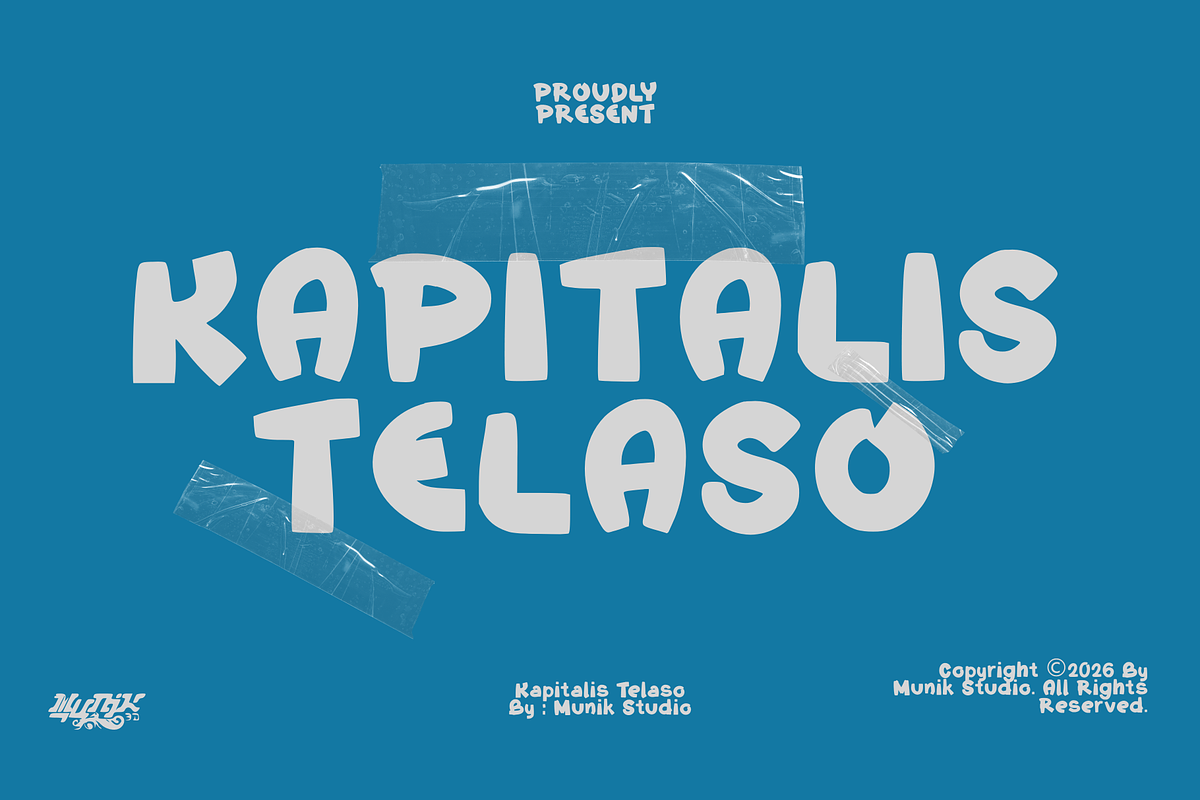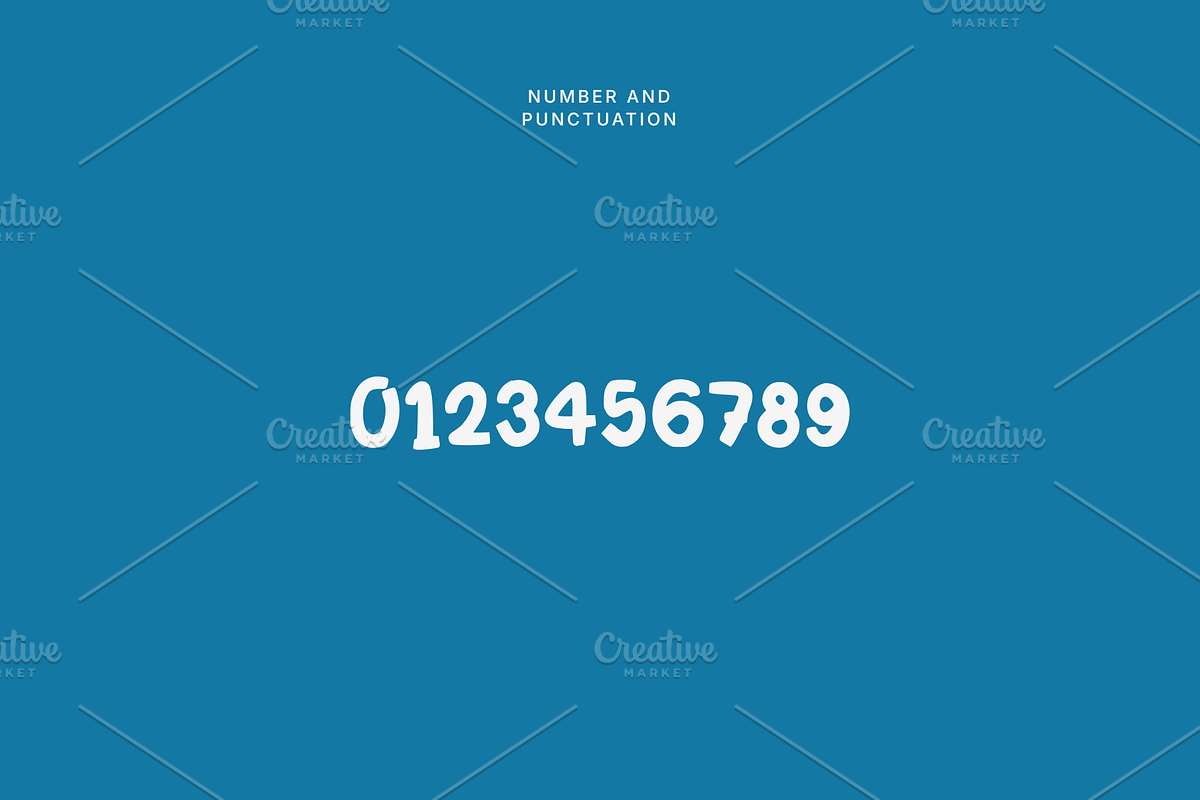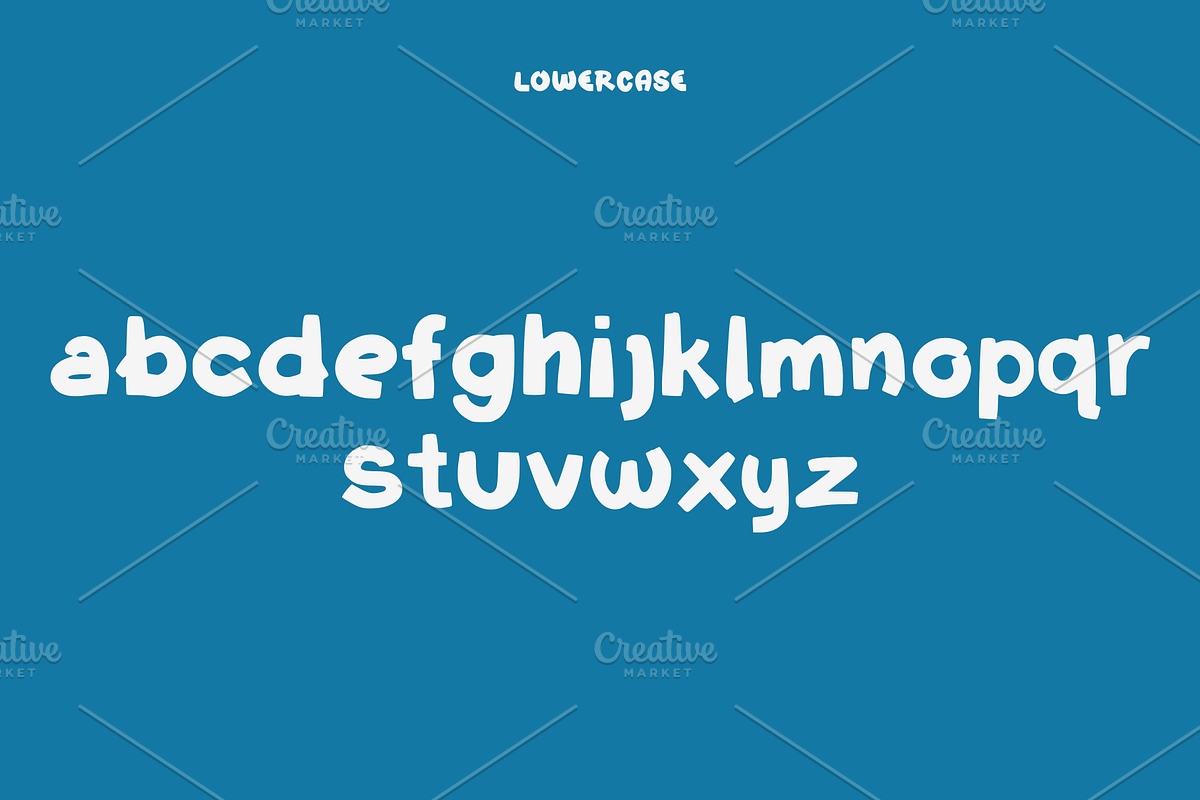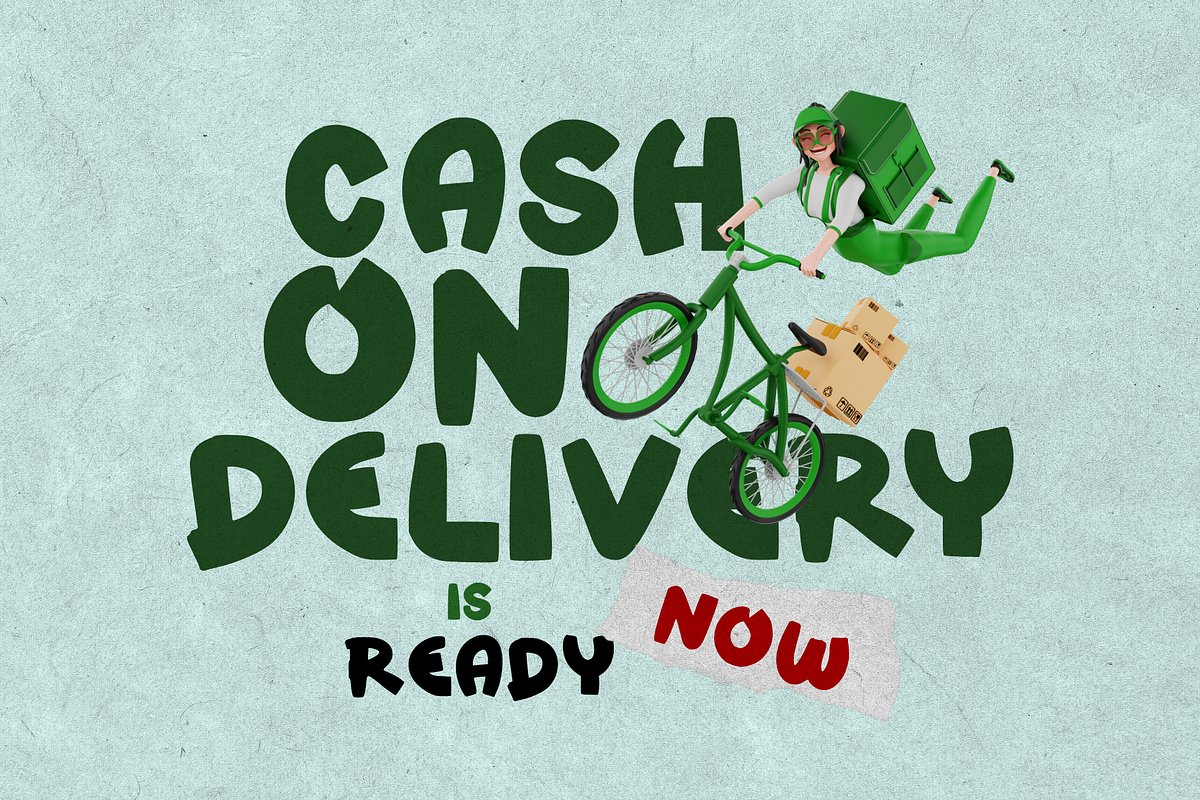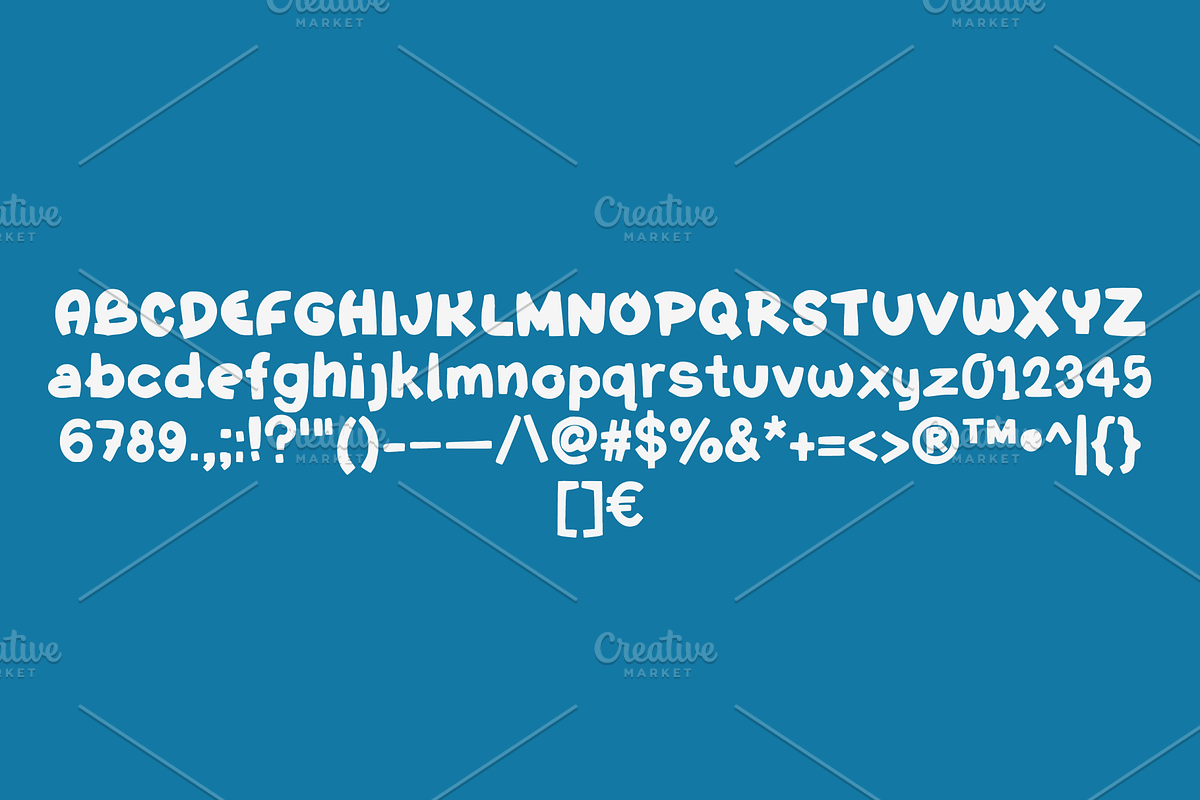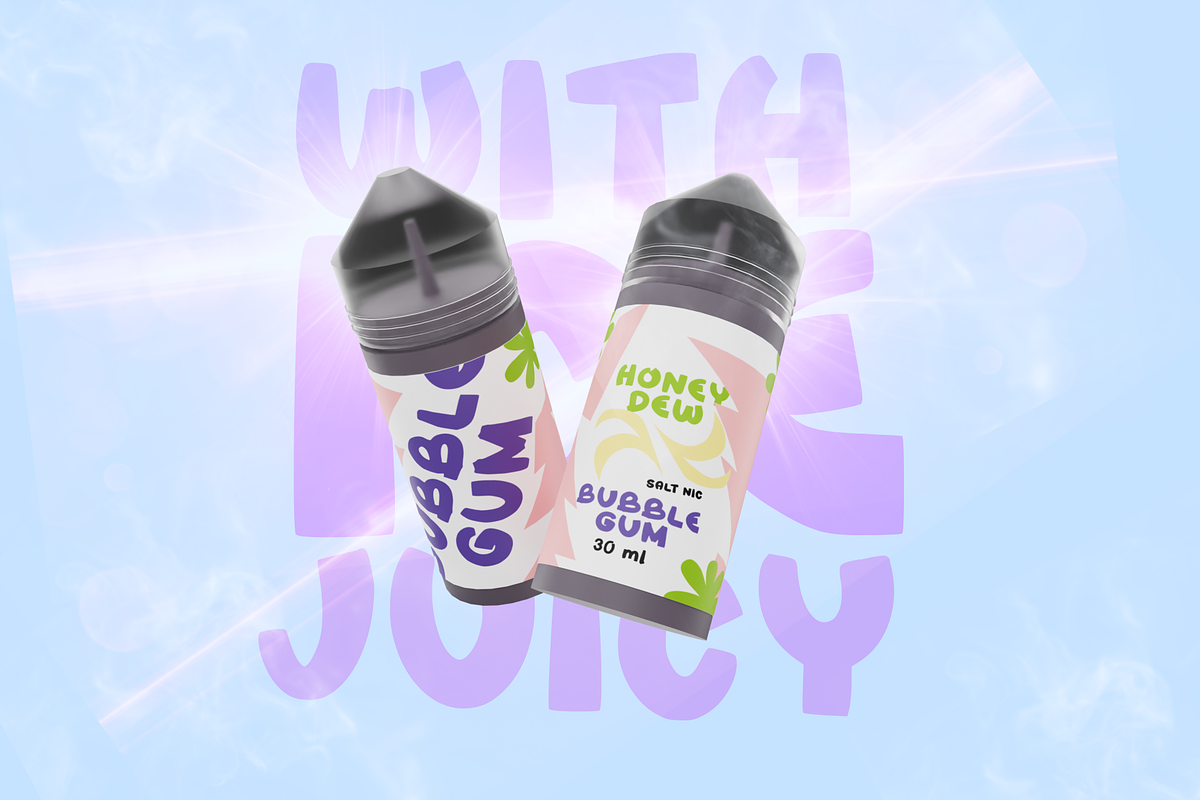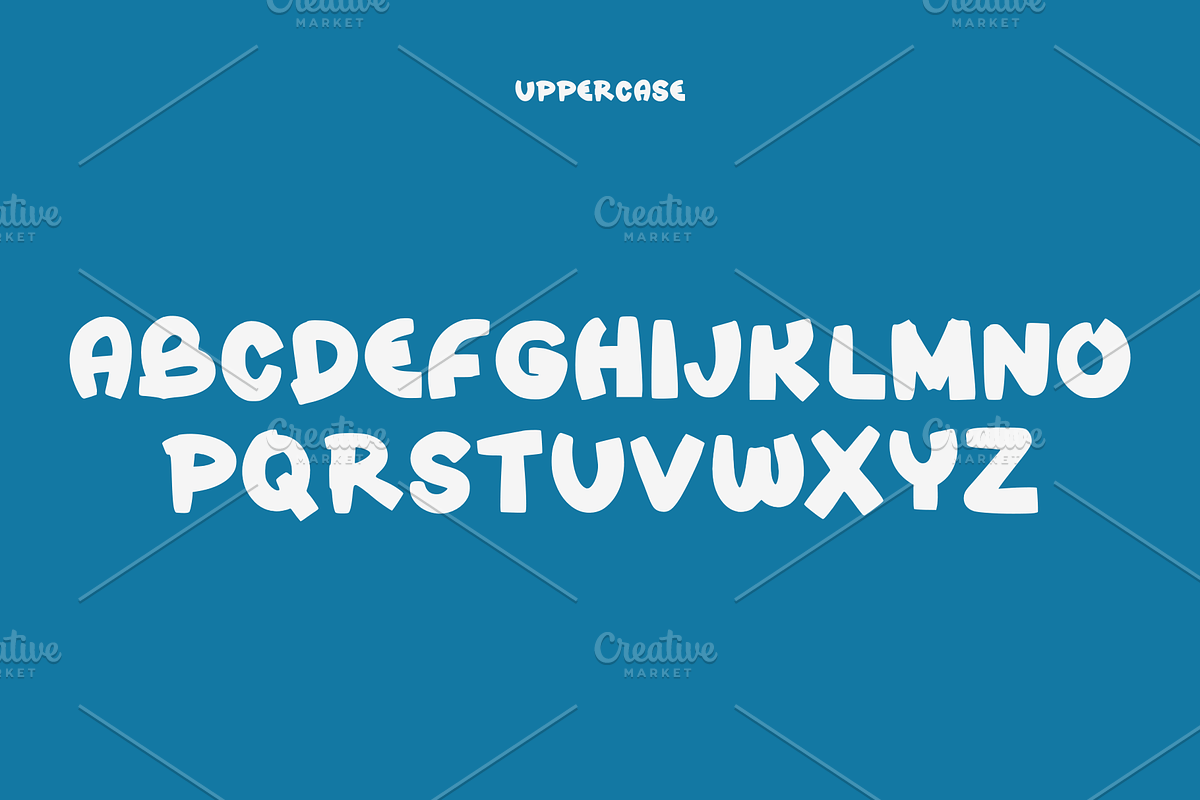
KAPITALIS TELASO
Kapitalis Telaso – Playful Display Font
Kapitalis Telaso is a bold, playful, and expressive display font designed to bring a fun and energetic personality to your creative projects. With its chunky letterforms, rounded shapes, irregular details, and distinctive hand-drawn appearance, this typeface creates a friendly and youthful visual impact that instantly grabs attention.
Perfect for posters, logos, branding, T-shirt designs, stickers, packaging, social media graphics, headlines, children’s designs, merchandise, album artwork, and other eye-catching display projects. Kapitalis Telaso works especially well when you want your design to feel bold, casual, creative, quirky, and full of character.
The organic shapes and slightly imperfect letterforms give Kapitalis Telaso a handmade feel, making it a great choice for contemporary designs that need something different from traditional clean and geometric fonts. Its strong presence makes it especially effective for large headlines, short phrases, and attention-grabbing typography.
Kapitalis Telaso is made for designers who want to add a bold, playful, and unconventional touch to their work while keeping the typography fun, expressive, and memorable.